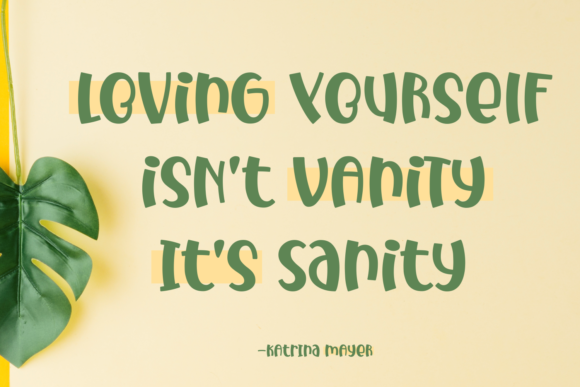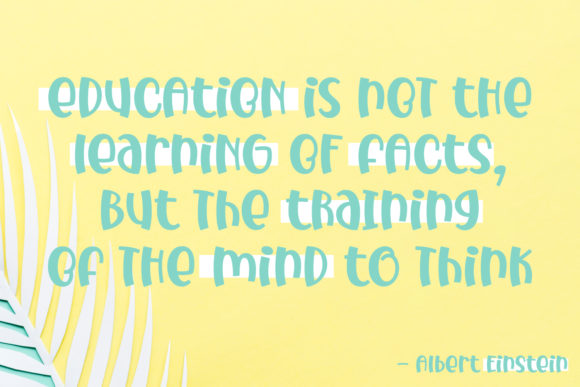
Introduction to Chacha Font
Chacha is a whimsical display font.
This fantastic font is best suited for headlines of all sizes, as well as for blocks of text that have both maximum and minimum variations Whether itโs for web, print, moving images or anything else โ Chacha will look spectacular.